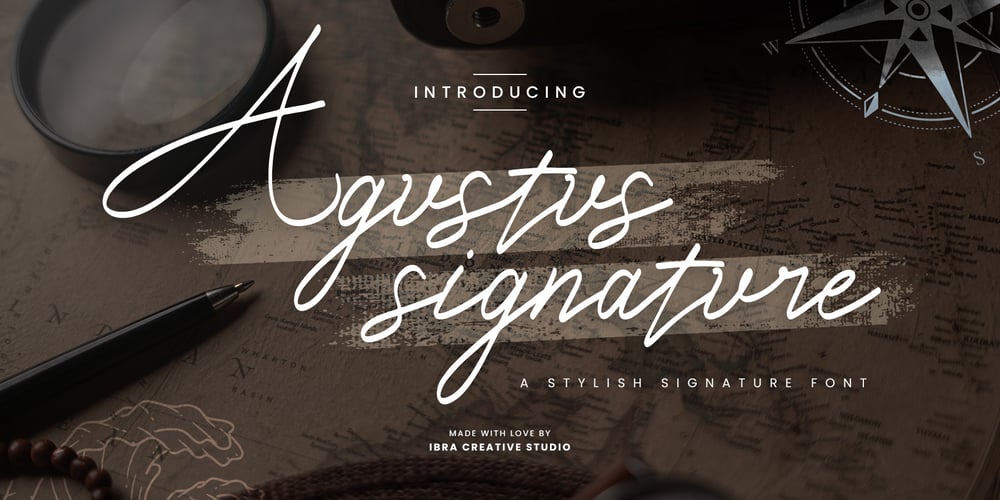
Agustus Signature Font Family was designed by Roisatul Azizah and published by IbraCreative. Agustus Signature contains 1 styles and family package options. Agustus Signature is a sophisticated and stylish font that embodies elegance and refinement. Drawing inspiration from the grace and poise of a personalized signature, Agustus Signature delivers a timeless and luxurious feel to any design. Each letter is meticulously crafted with intricate curves and fine details, mirroring the fluid strokes of a genuine signature. This font is perfect for high-end branding, luxury products, and exclusive invitations, adding a touch of prestige and class to any project. With its versatile nature, Agustus Signature seamlessly adapts to a wide range of creative applications, showcasing its impeccable style and leaving a lasting impression of sophistication and distinction